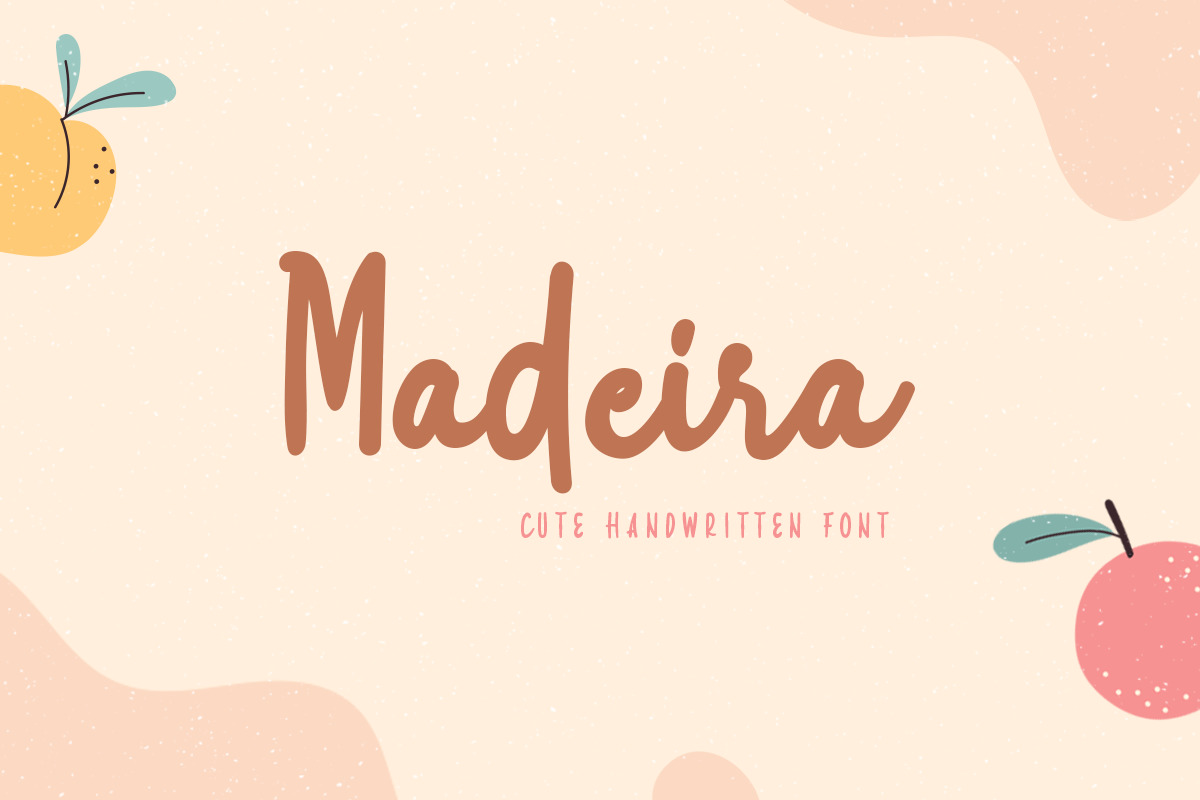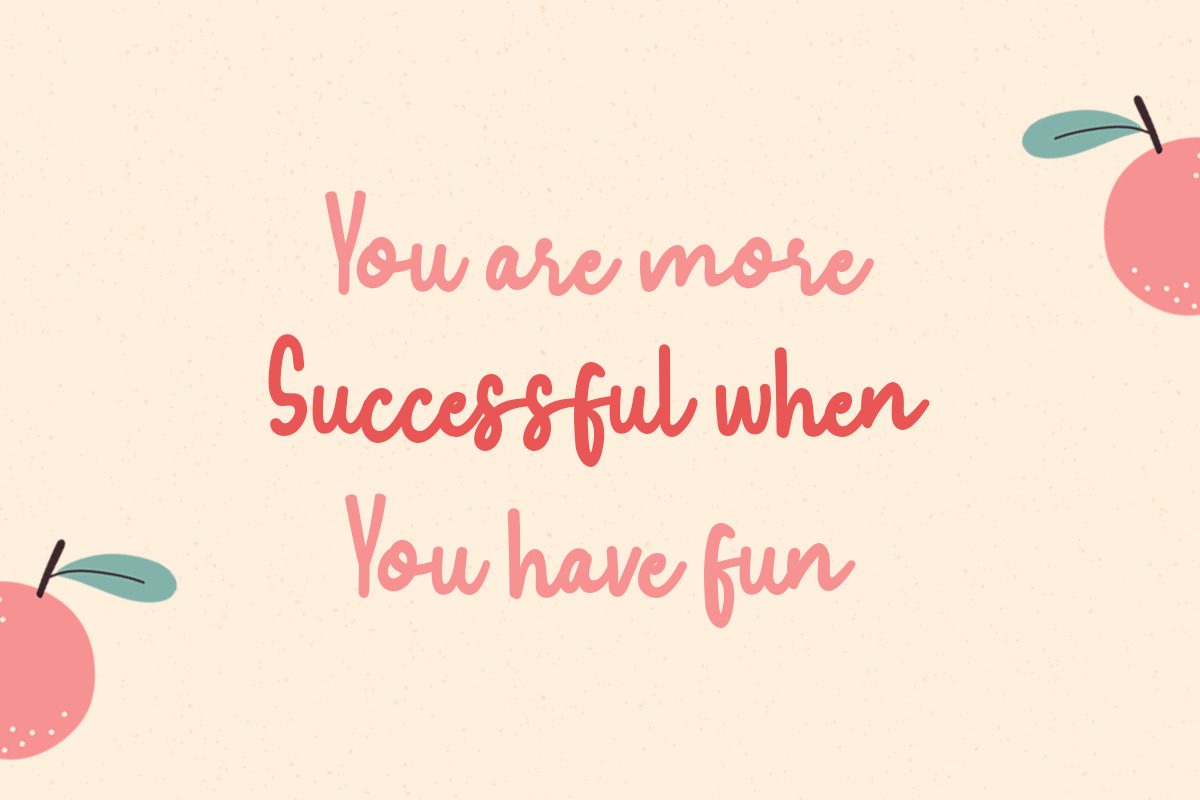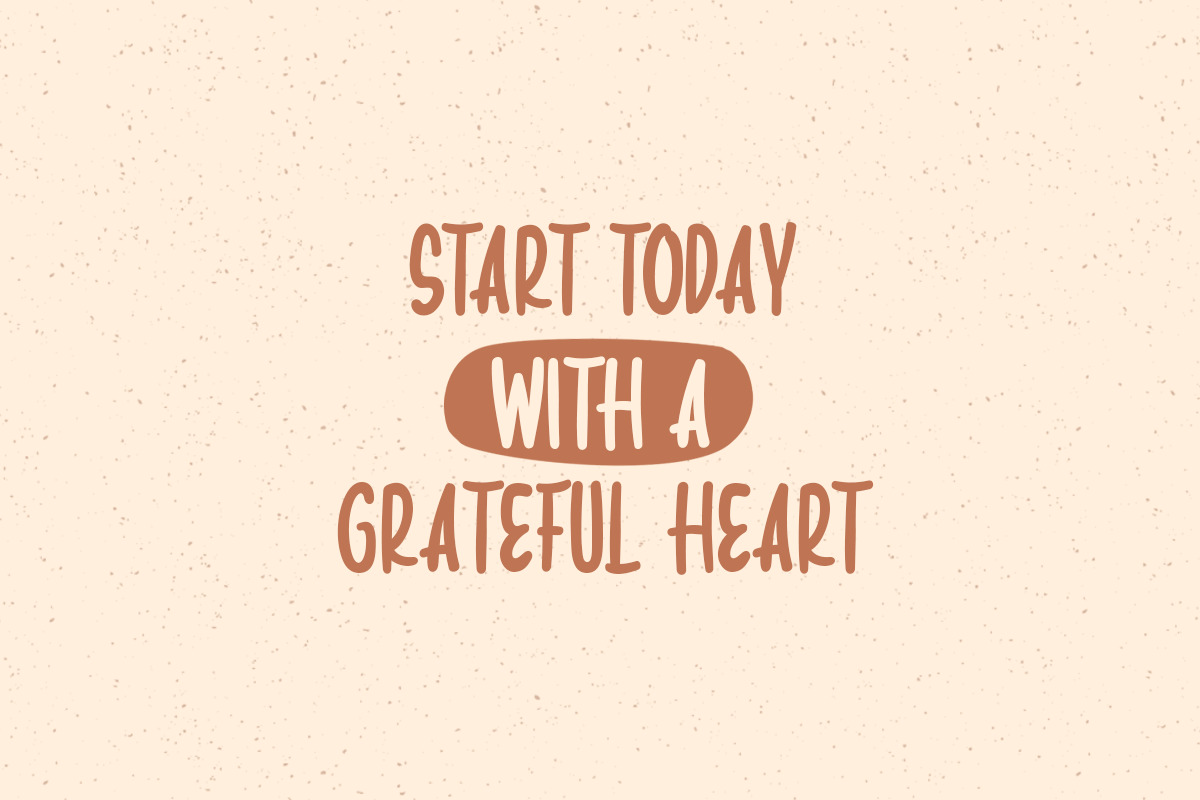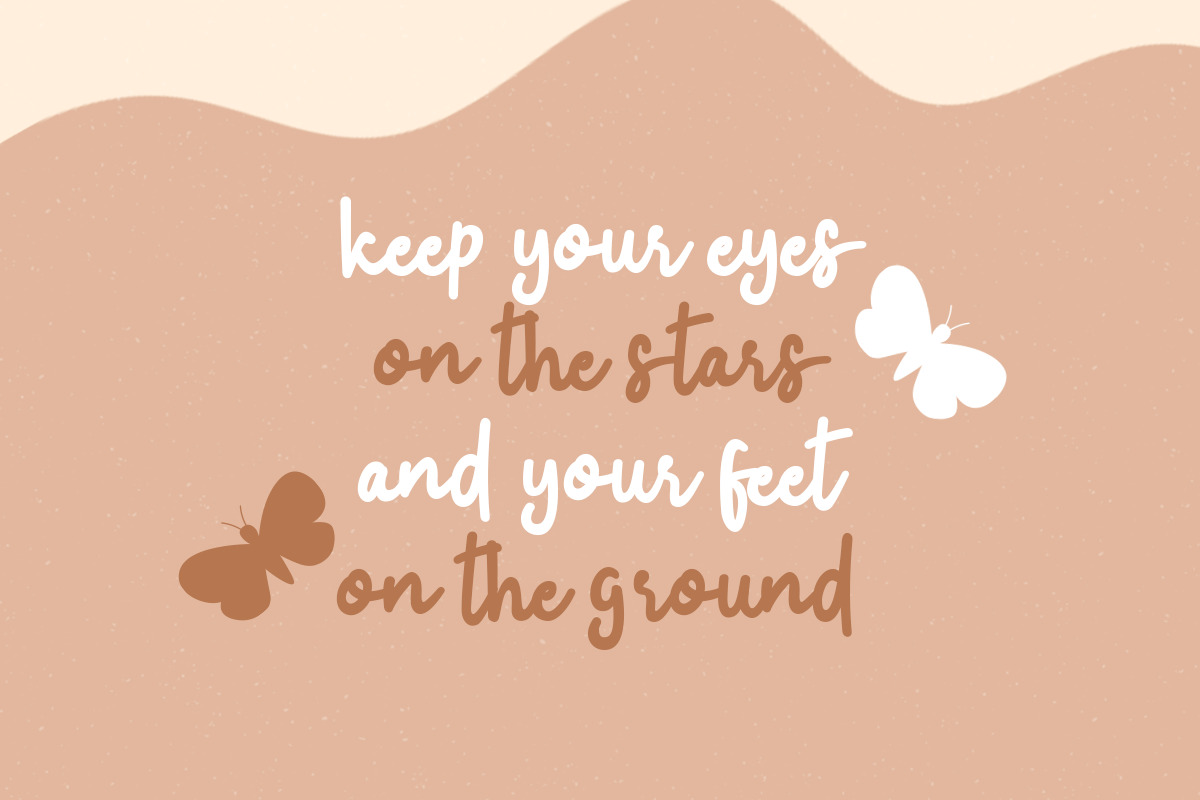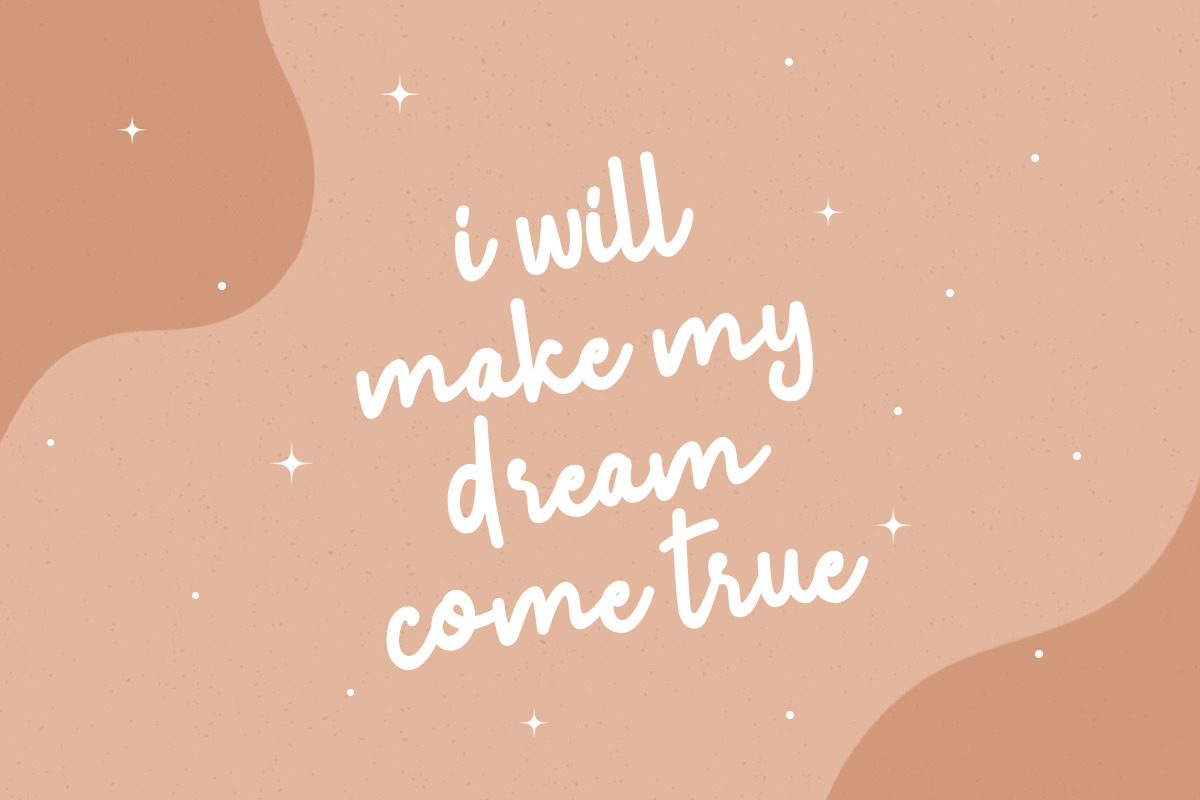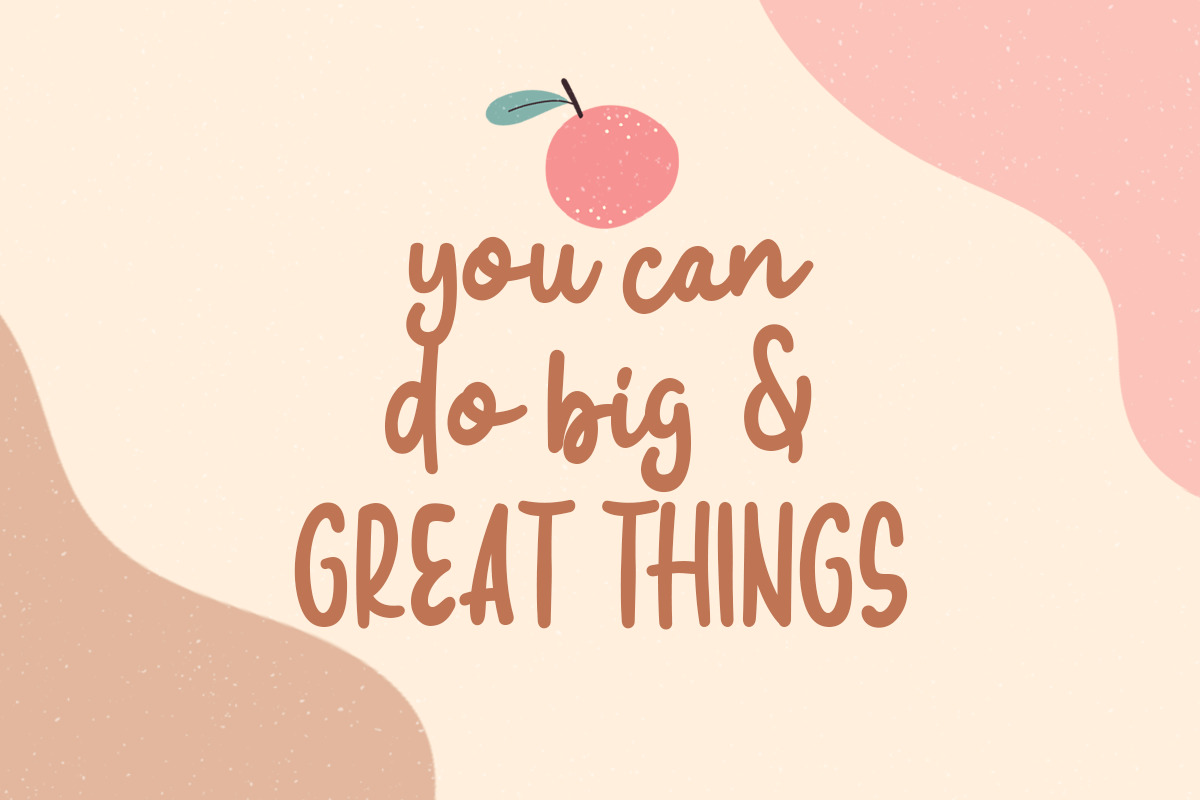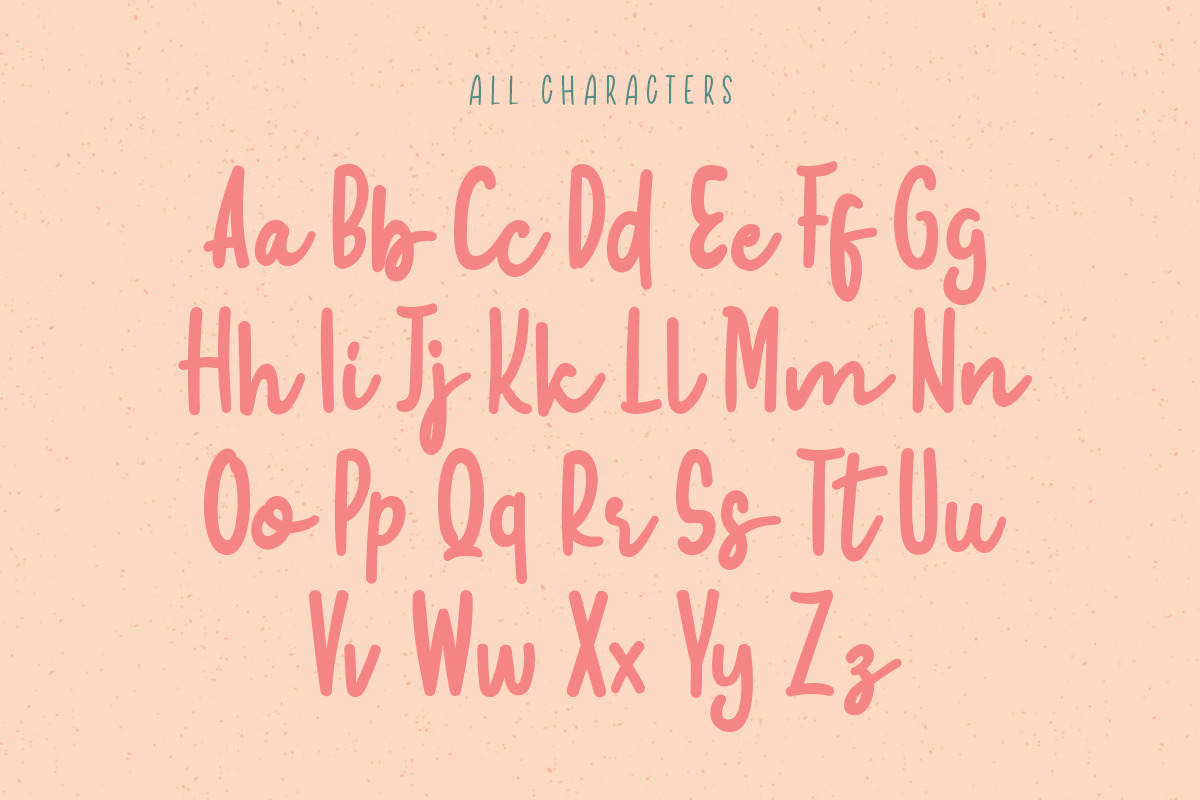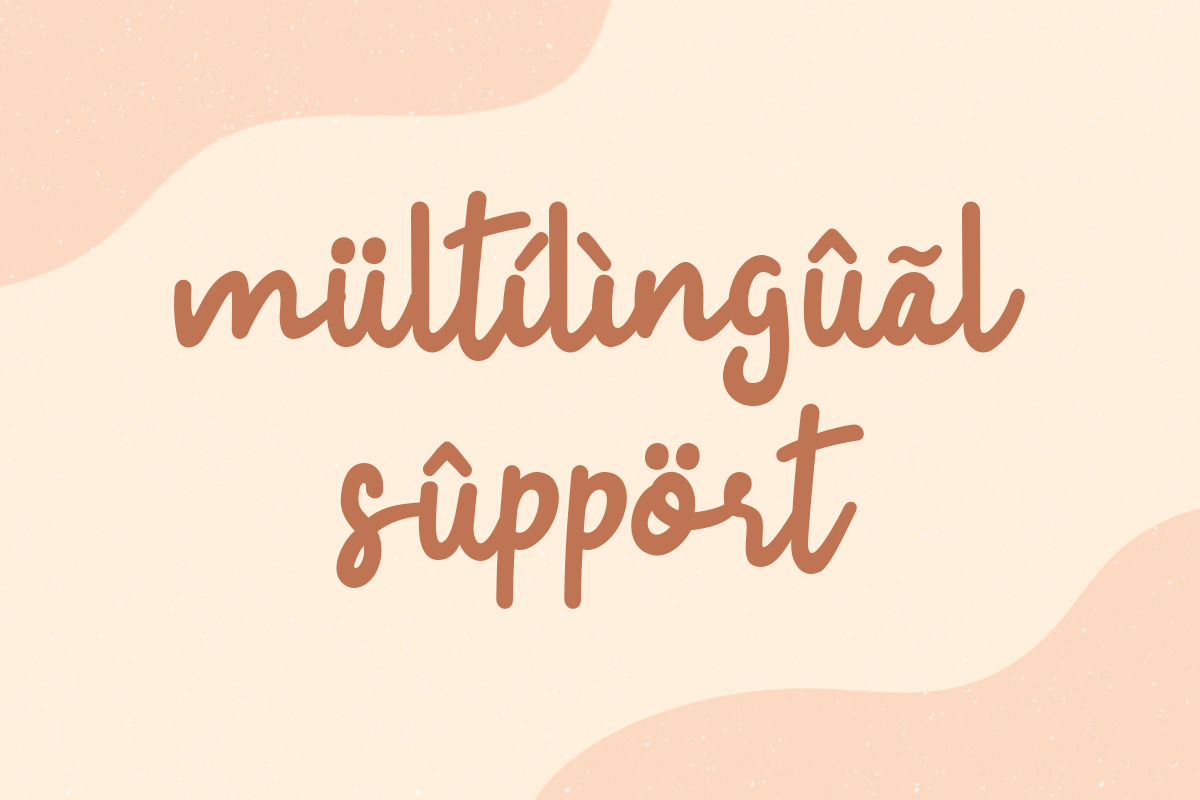
Madeira – Cute Handwitten Font
Madeira A Modern Cute Handwritten font with nice and modern style and so beautiful. This font specially crafted for your project design or professional logo, modern for any designs such as product, merchandise, and so many more with easy to use but unique results are so professional.
Enjoy to Design any your needs with cute, cheerful, and charming feel.